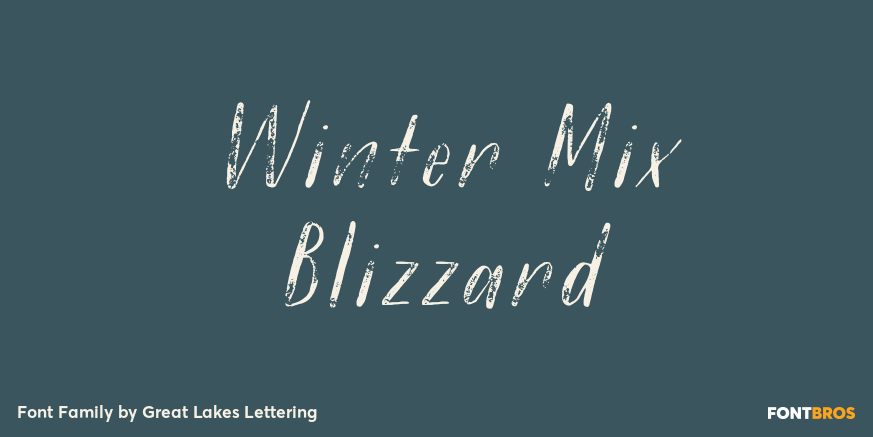
HomeFont BrosContemporaryWinter Mix Blizzard ContemporaryDistressedHandwrittenDingbat Winter Mix Blizzard FacebookXPinterestWhatsApp 1 of 1 About Winter Mix Blizzard To help usher in the first snowfall in the Upper Mid West, we are releasing Winter Mix Blizzard. A grand collection of weatherworn handmade fonts.  DOWNLOAD NOW People also explored Kindness Kern Font Minerals Buble Font Impossible Font Cweamy Font Belong – Blacklatter Font Font Butter Cookies Font Lily Blossom Line Font Unicorn Lover Font Garden Font 297 0 TagsWinter Mix Blizzard Font Previous articleDarksideNext articleMargherite LEAVE A REPLY Cancel reply Comment: Please enter your comment! Name:* Please enter your name here Email:* You have entered an incorrect email address! Please enter your email address here Website: Save my name, email, and website in this browser for the next time I comment. Personal Use Free Foolish Hand Personal Use Free Read more about this font Waverly Date Personal Use Free Read more about this font Bettari Personal Use Free Read more about this font The Most Beautiful Gift Personal Use Free Read more about this font BLOG Free vs Paid Fonts: Why Investing in Premium Fonts Is Worth It Free vs Paid Fonts: Why Premium Fonts Are Worth It in 2025 The debate of free vs paid fonts continues in the design world. While... Best Fonts for YouTube Videos: Make Your Thumbnails Stand Out 5 Fonts That Will Dominate Design Trends in 2026 Using Fonts in Digital Marketing: Tips to Strengthen Your Brand Identity